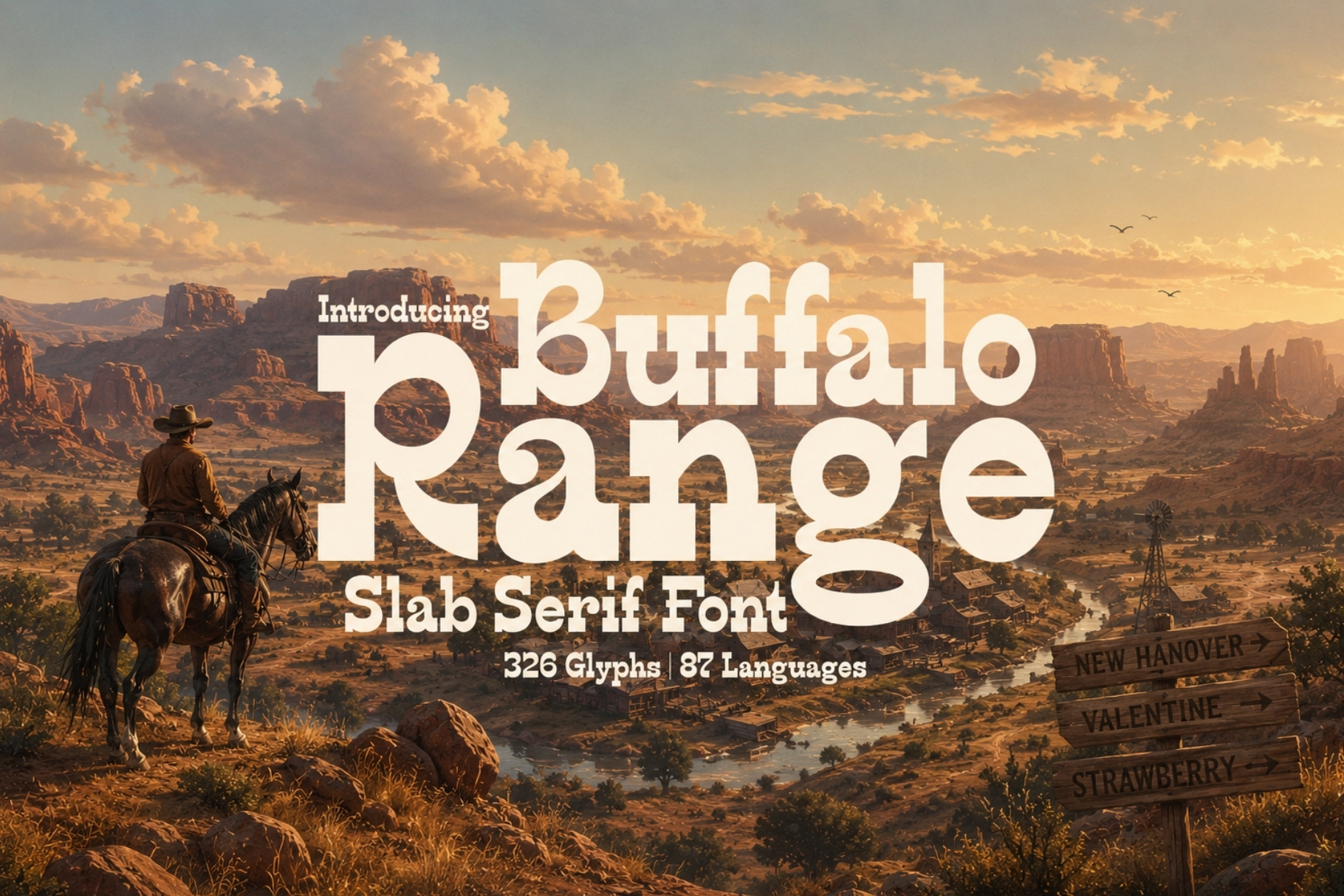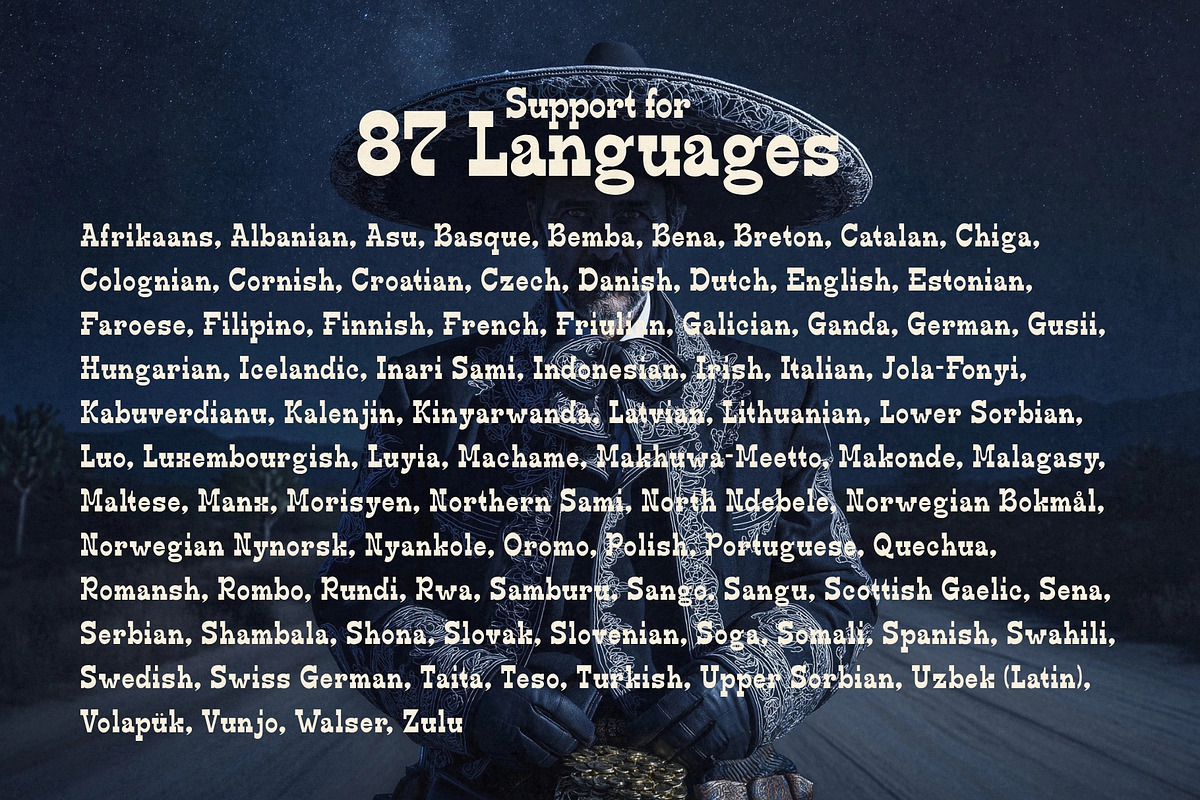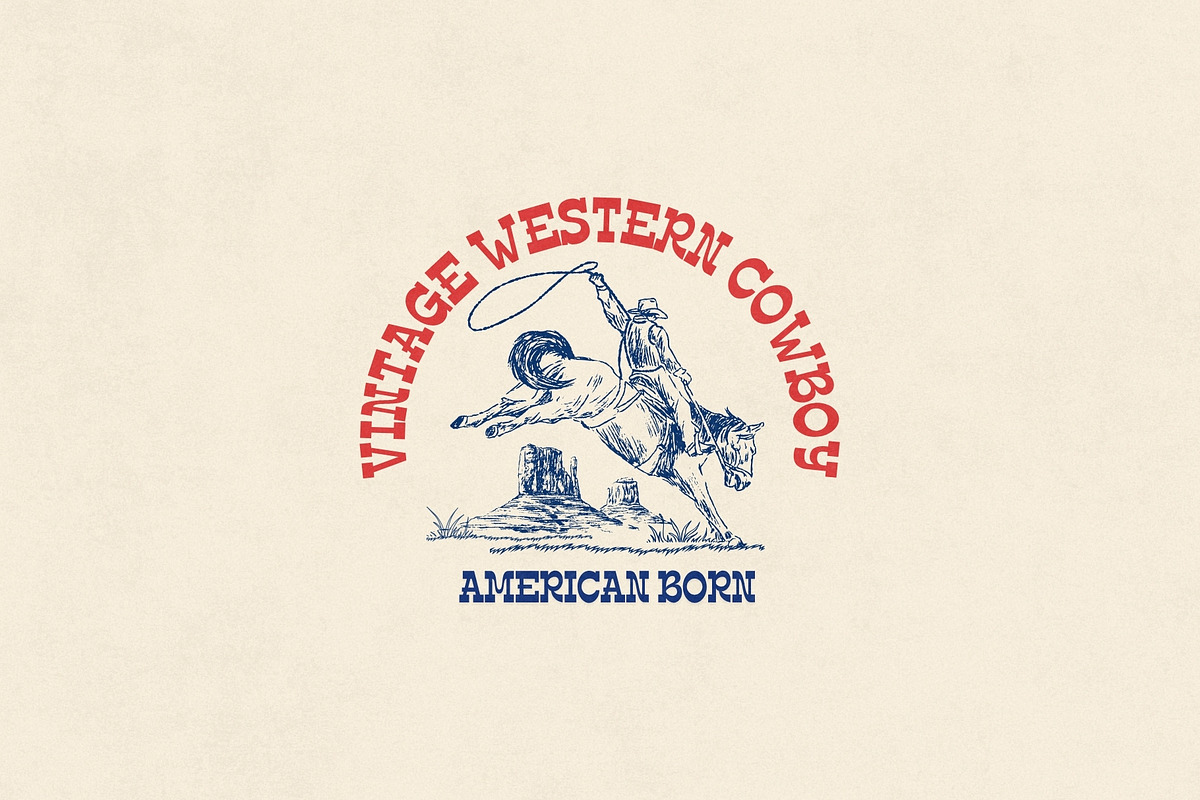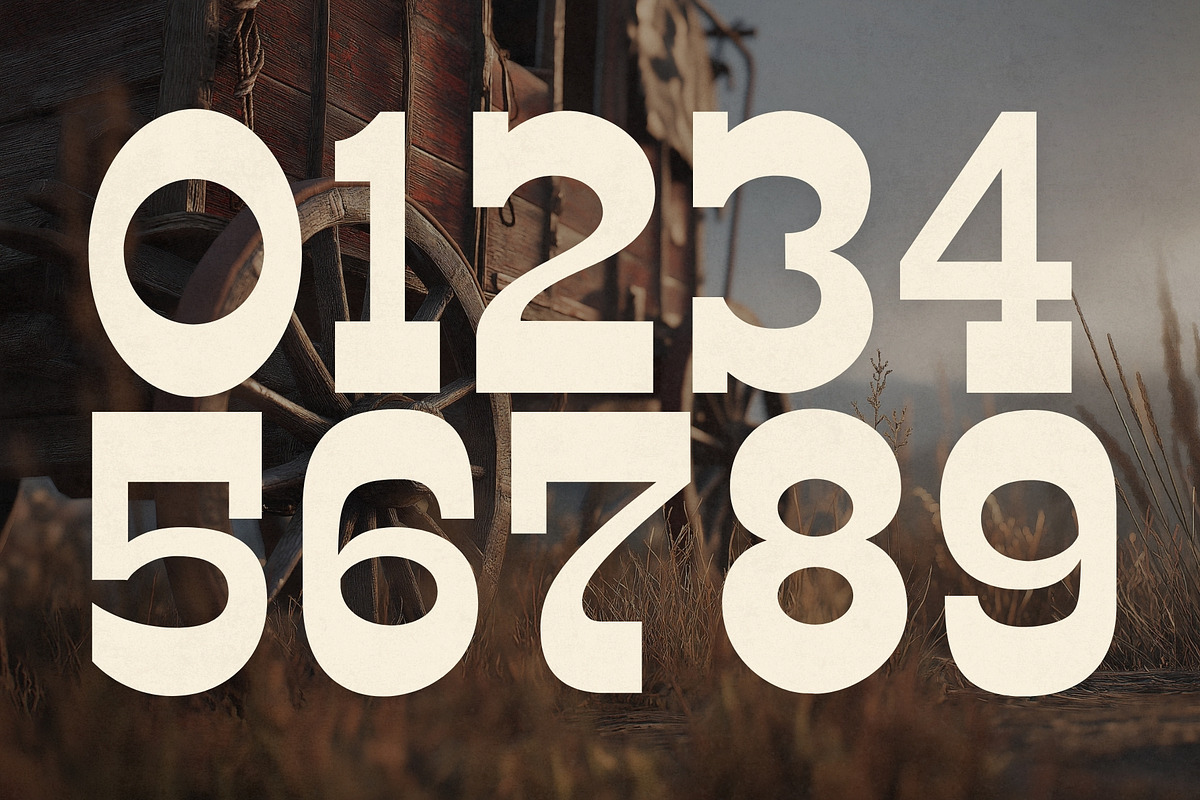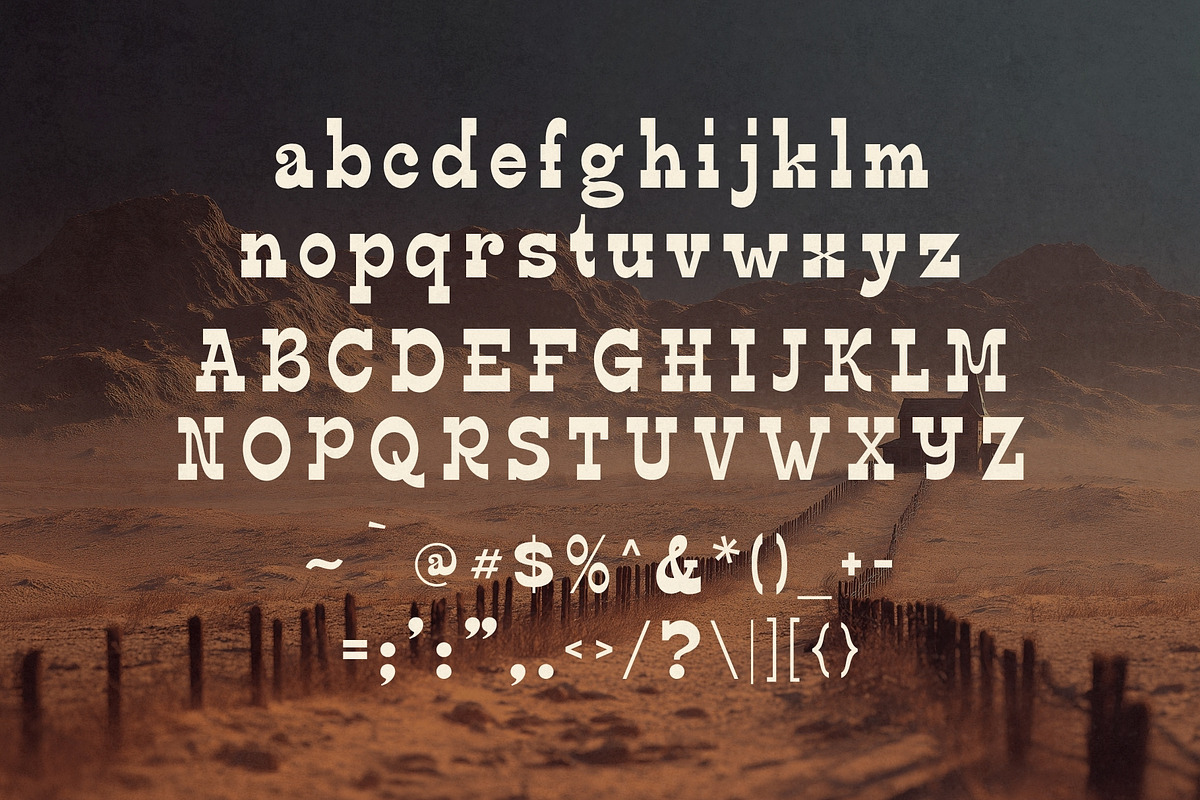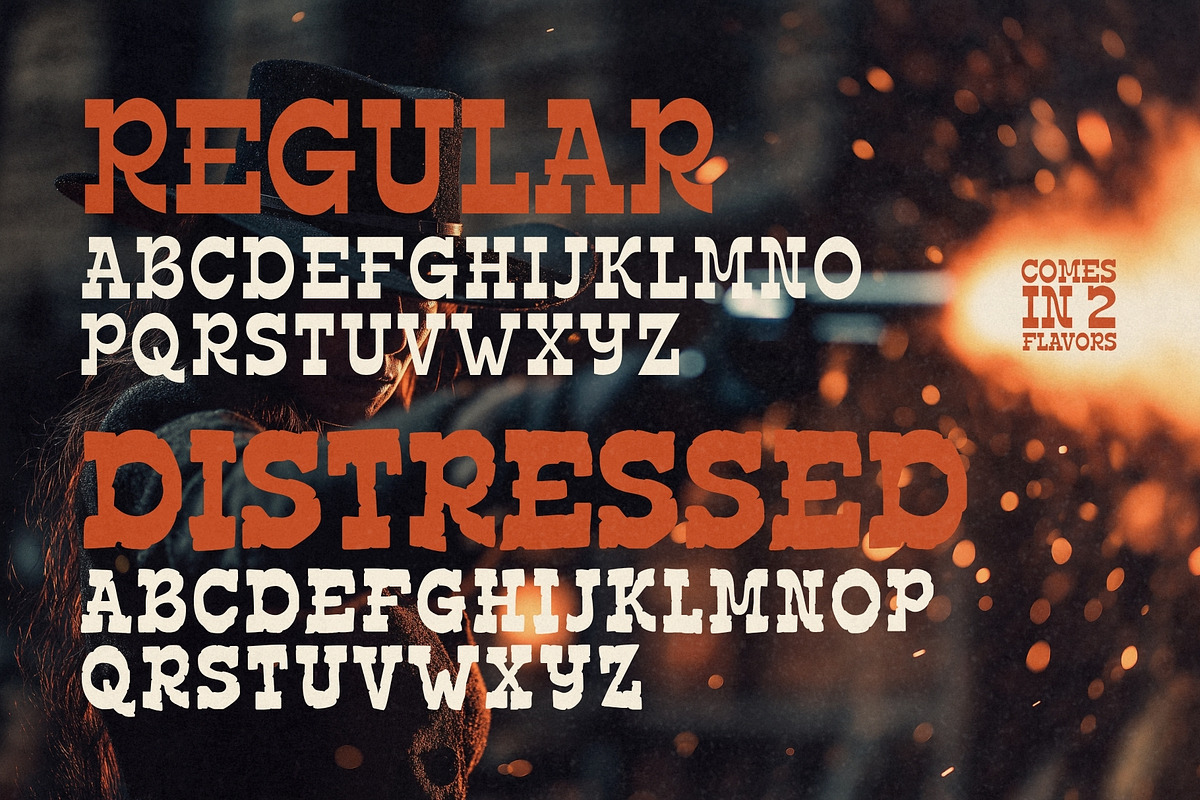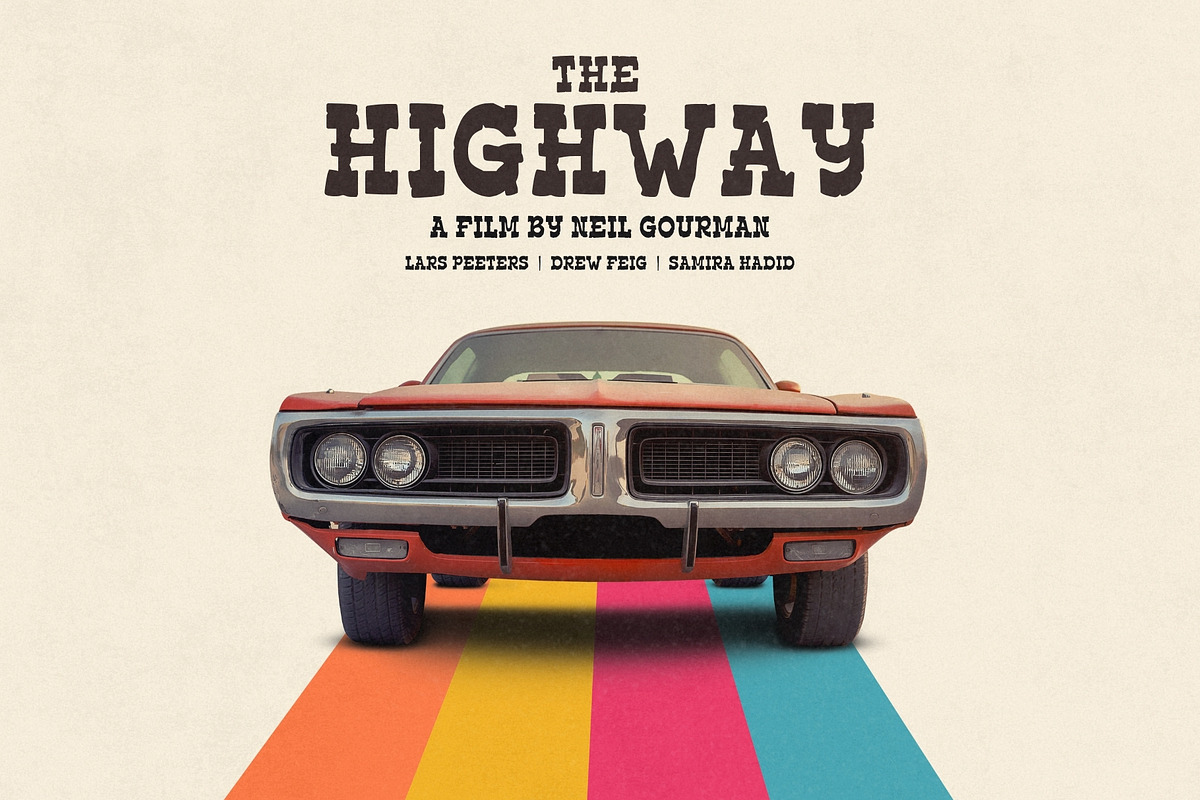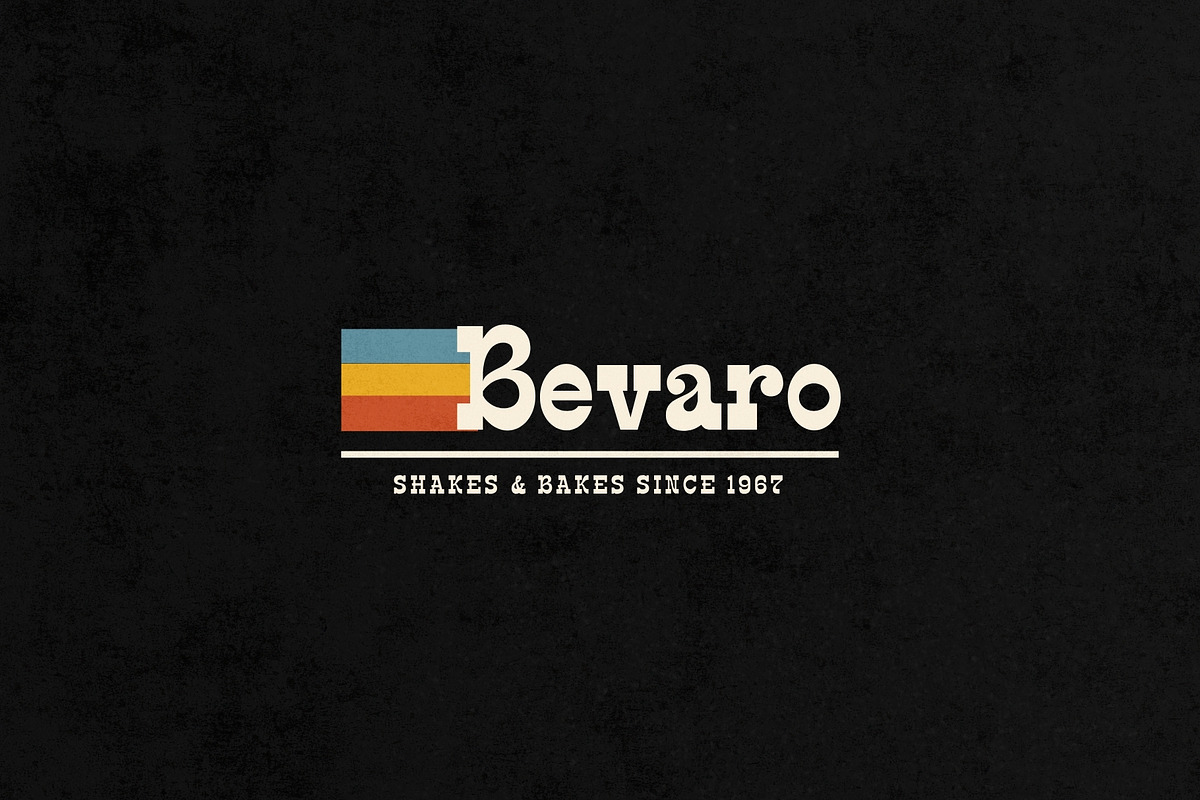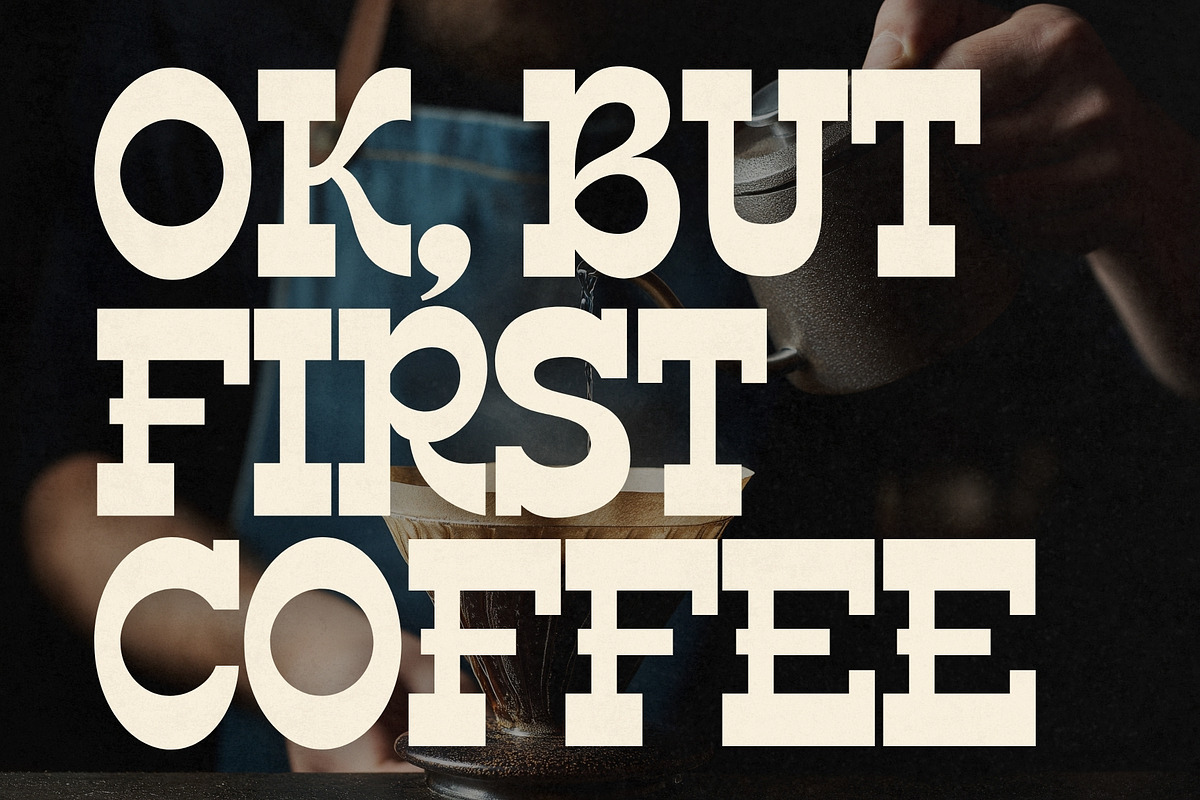
Buffalo Range - Slab Serif Font
Buffalo Range is a rugged slab serif typeface that captures the untamed spirit of the American frontier. Forged from grit, dust, and the echoes of the Wild West, this bold typeface rides the line between raw authenticity and timeless design. Whether you’re branding a saloon, designing a Western movie poster, or crafting vintage-style packaging, Buffalo Range delivers a powerful punch of frontier character.
With 326 meticulously crafted glyphs and support for 87 languages, it ensures your message travels as far as the open plains. Available in two distinct styles — Regular and Distressed — Buffalo Range gives you the freedom to choose between clean, rugged strength or weathered, timeworn charm.
Perfect for cowboy, Wild West, and desert-themed designs, this typeface embodies the boldness of the frontier and the freedom of the open range. Buffalo Range isn’t just a font, it’s a legend in the making.